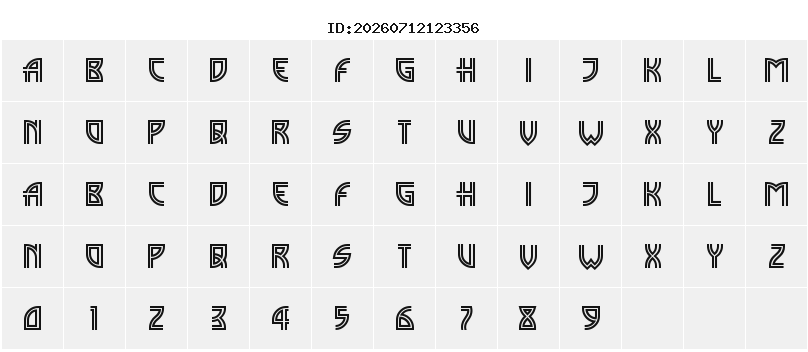
MadisonSquare Preview
• Font Name: MadisonSquare
• Font Style: Incised
• Font ID: MadisonSquare Incised
• Full Font Name: MadisonSquare Incised
• PostScript Name: MadisonSquareIncised
About MadisonSquare.ttf
MadisonSquare.ttf is a modern, elegant sans-serif font designed for ultimate readability and visual harmony. Perfect for branding, headlines, web design, and print materials.